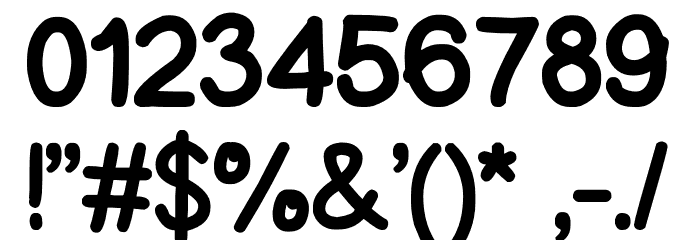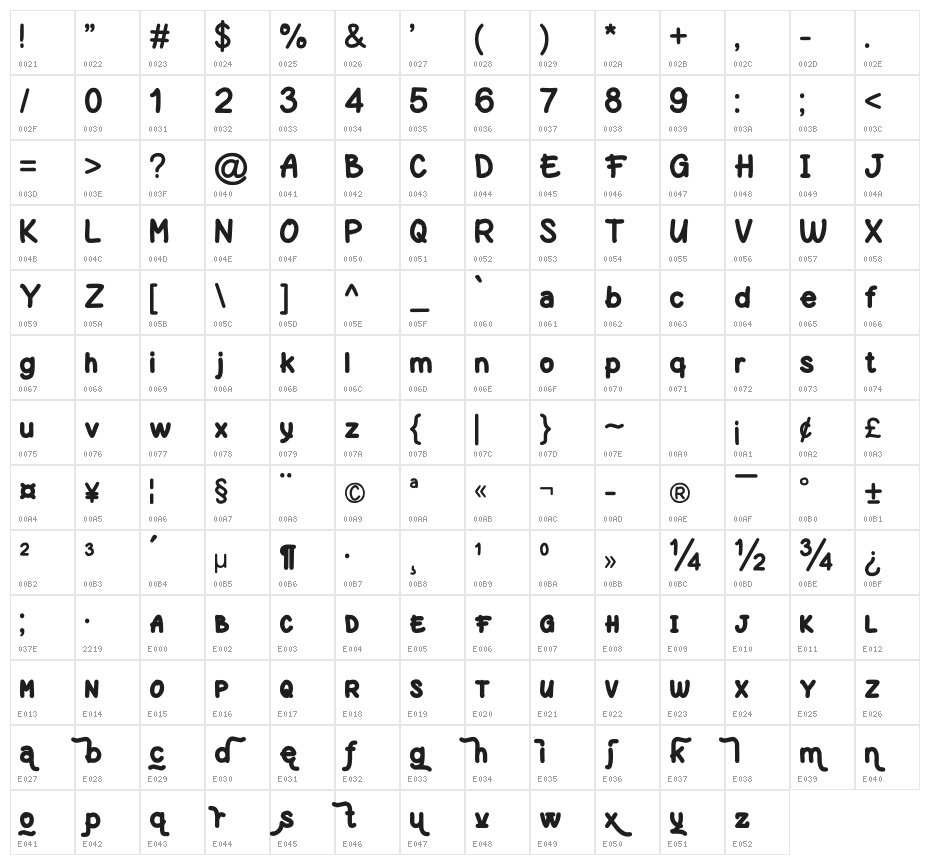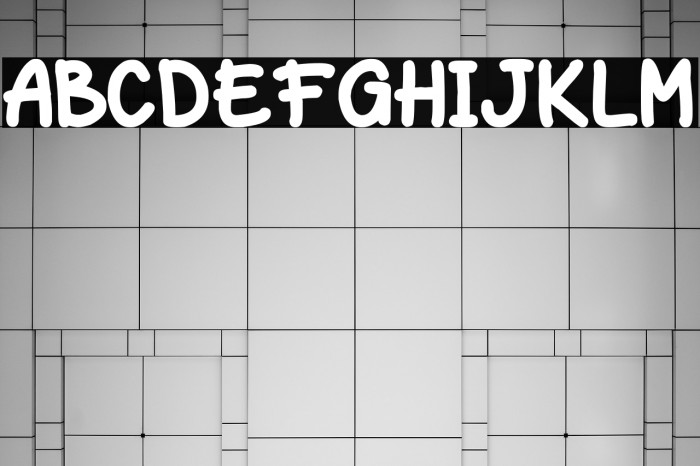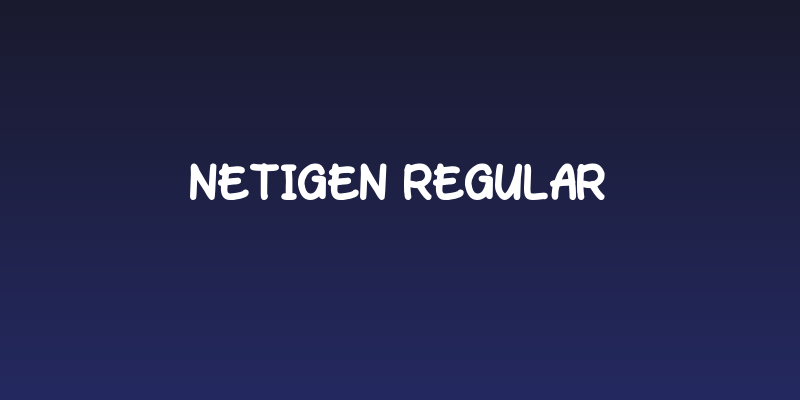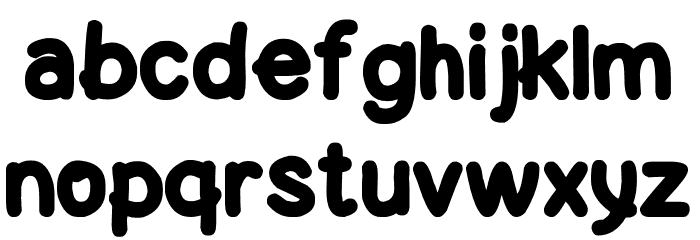
Netigen Regular Font
Netigen Regular Description
This font features a playful and bold style with rounded edges and a hand-drawn appearance. The characters are thick and uniform, giving a sense of friendliness and approachability. The uppercase and lowercase letters maintain a consistent weight, while the numerals and special characters blend seamlessly with the overall design. The font's informal and casual vibe makes it suitable for projects that aim to convey a sense of fun and creativity. Its readability is enhanced by the clear distinction between each character, despite the boldness of the strokes.
| Proposed Projects | Ideal for children's books, playful branding, casual invitations, and creative posters. |